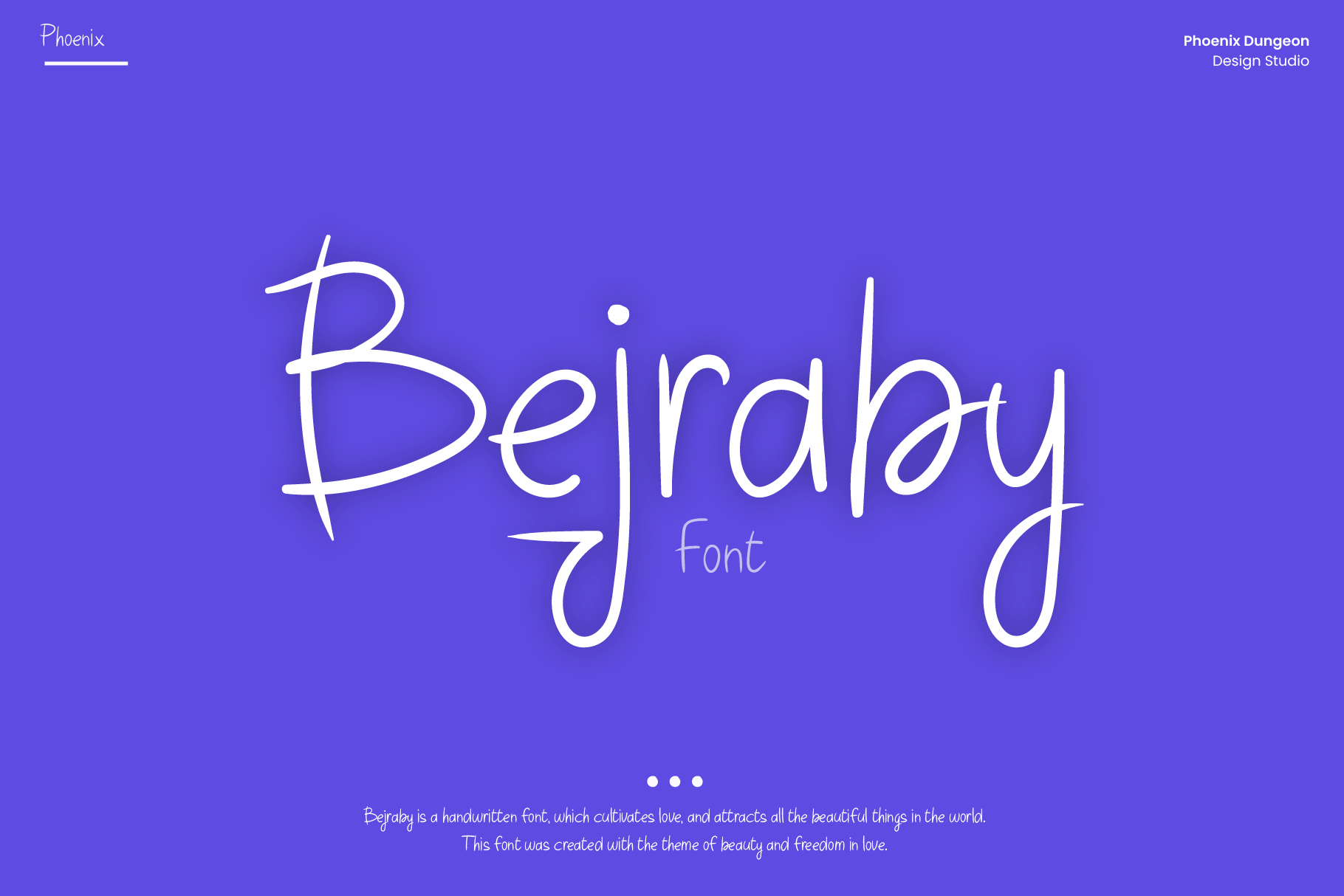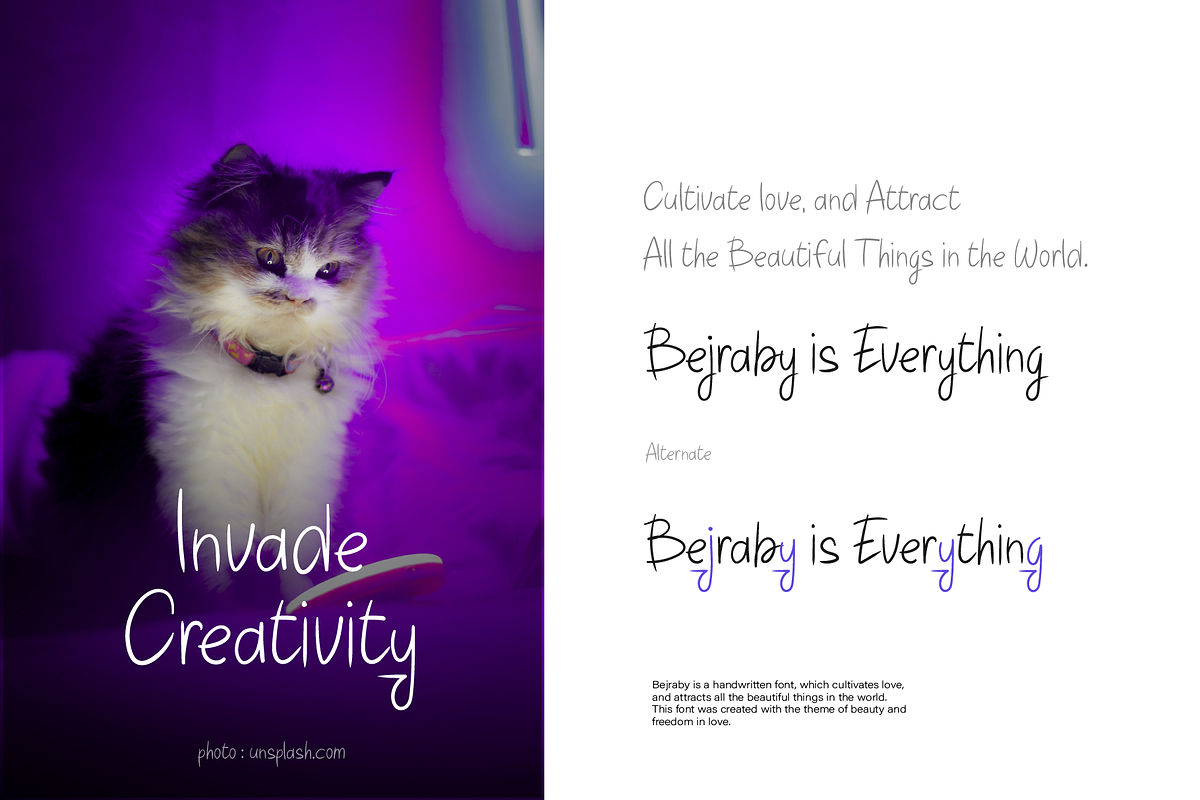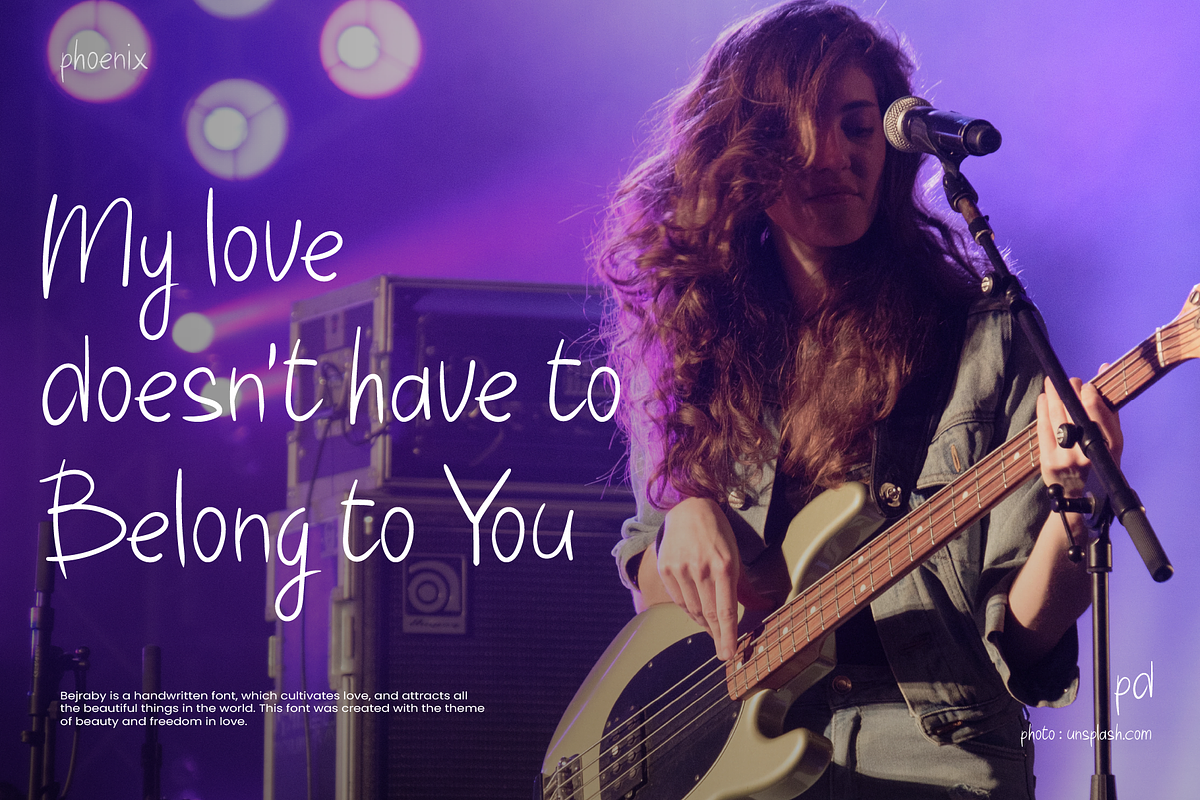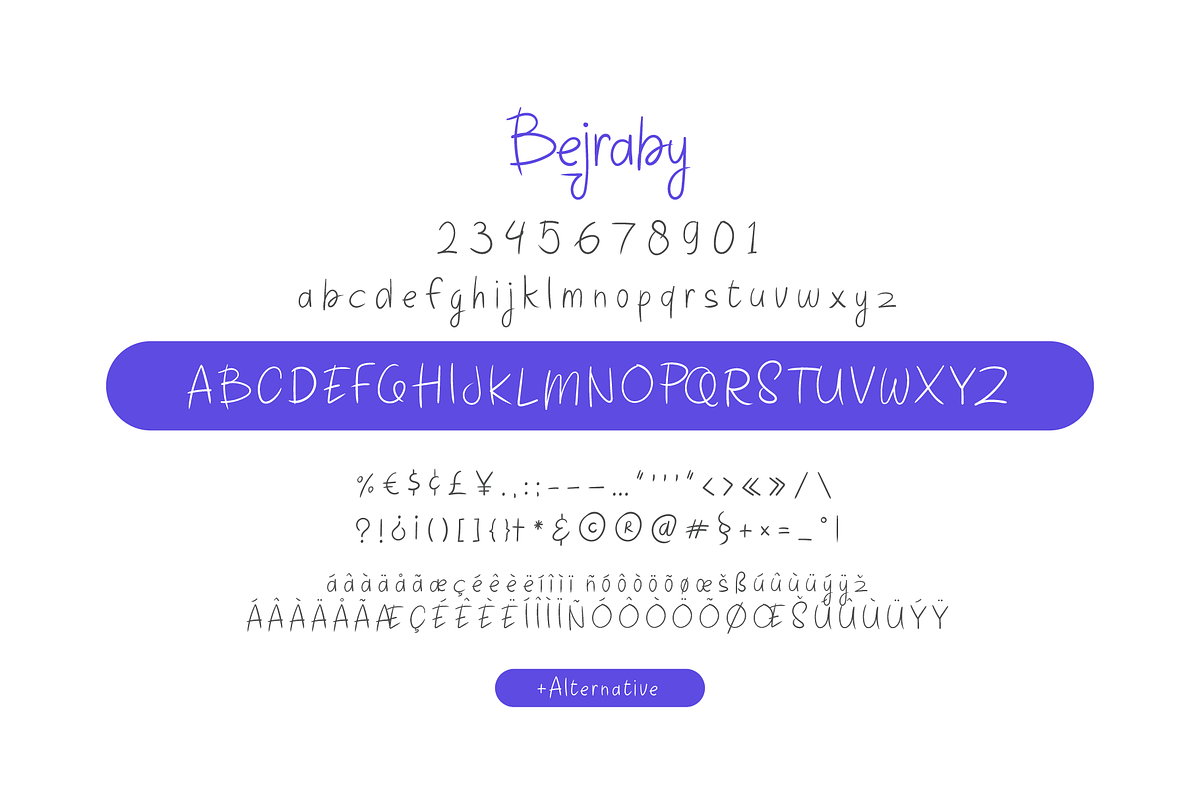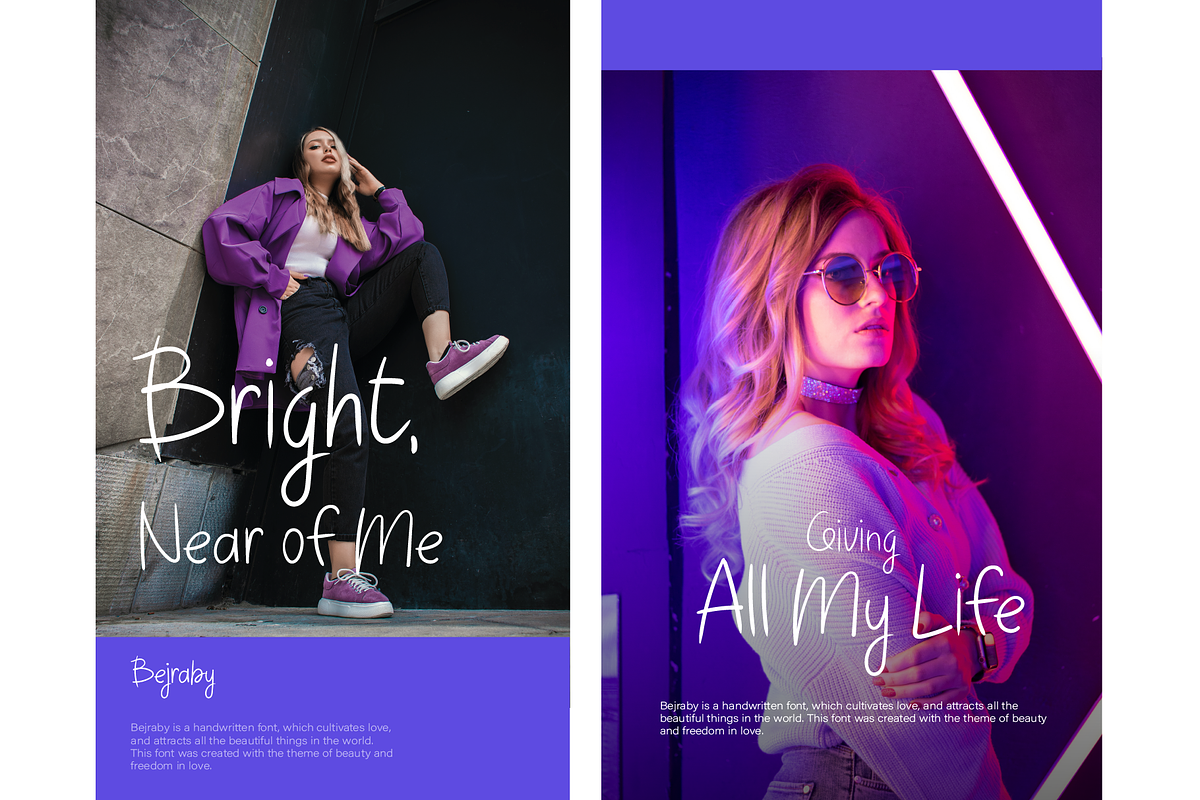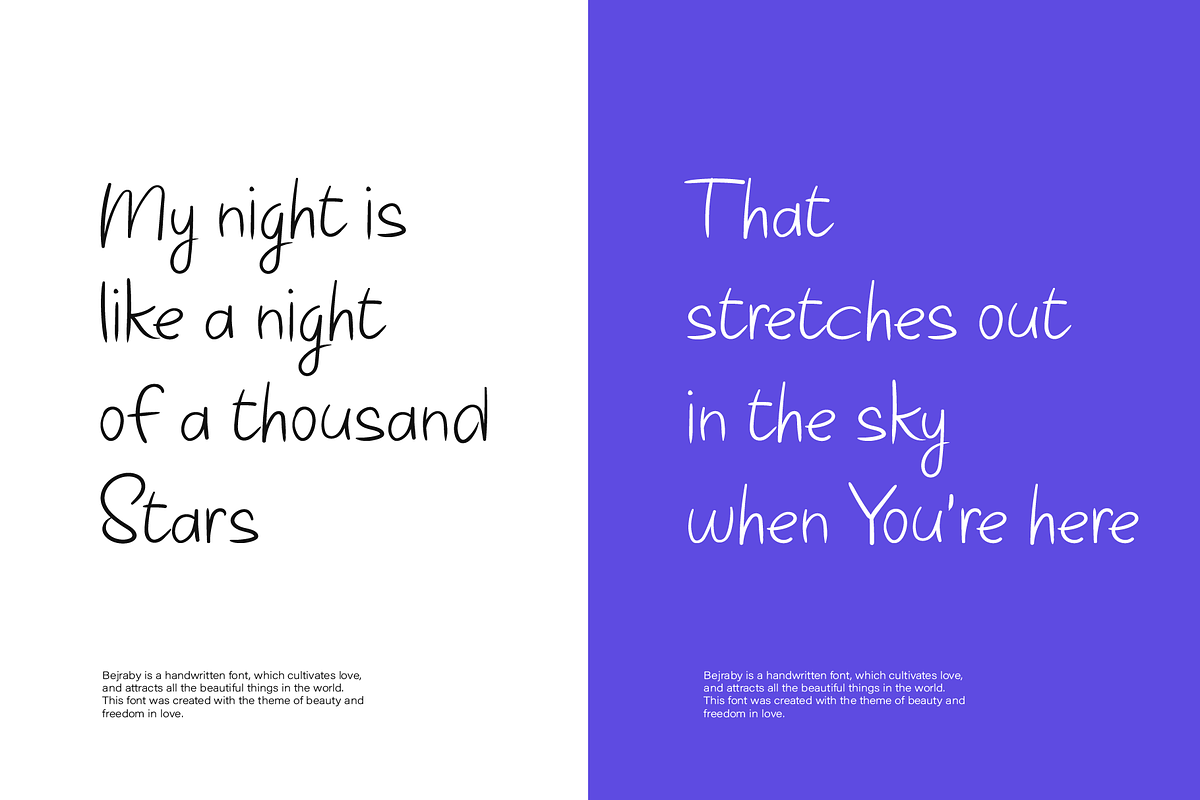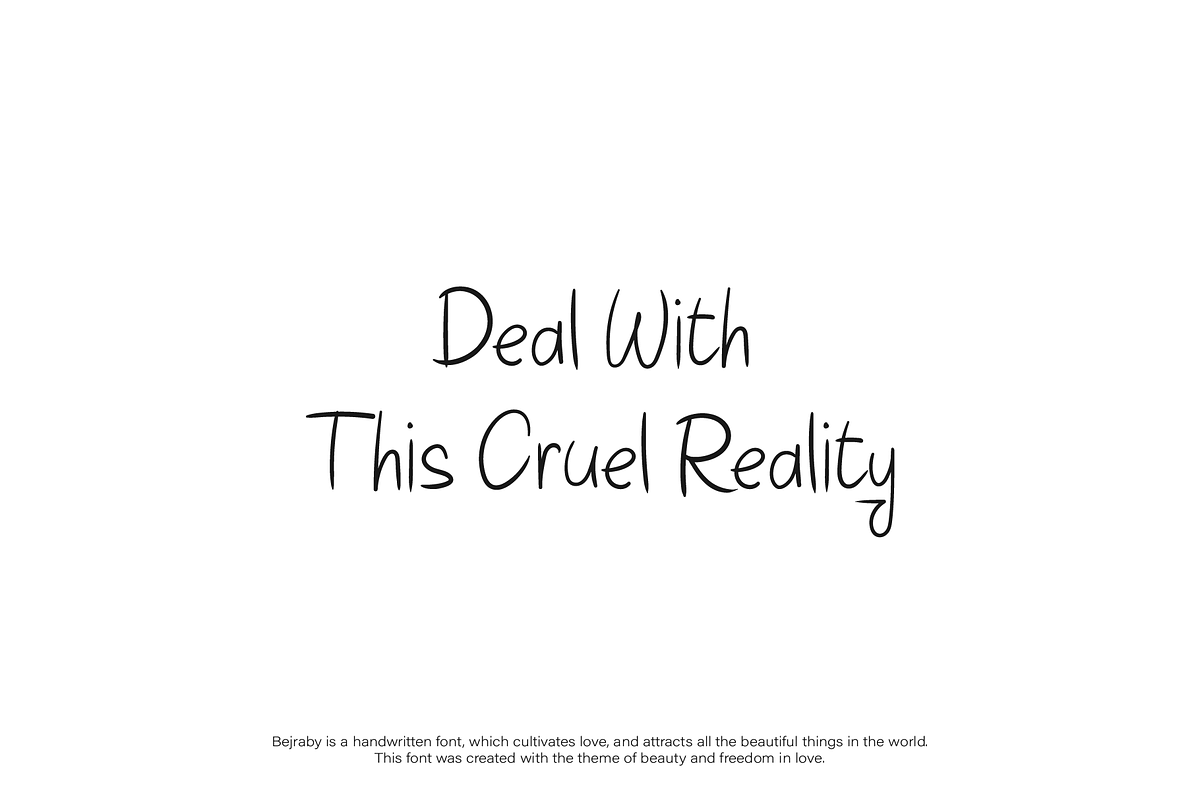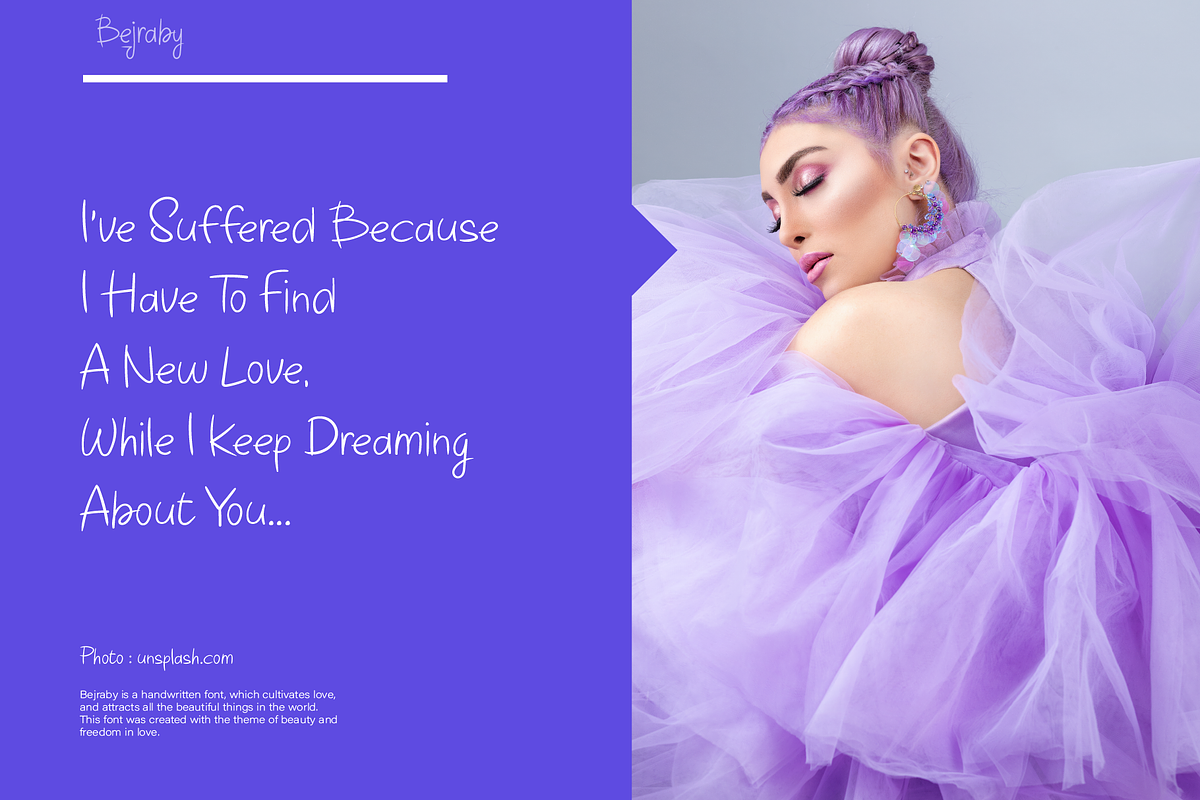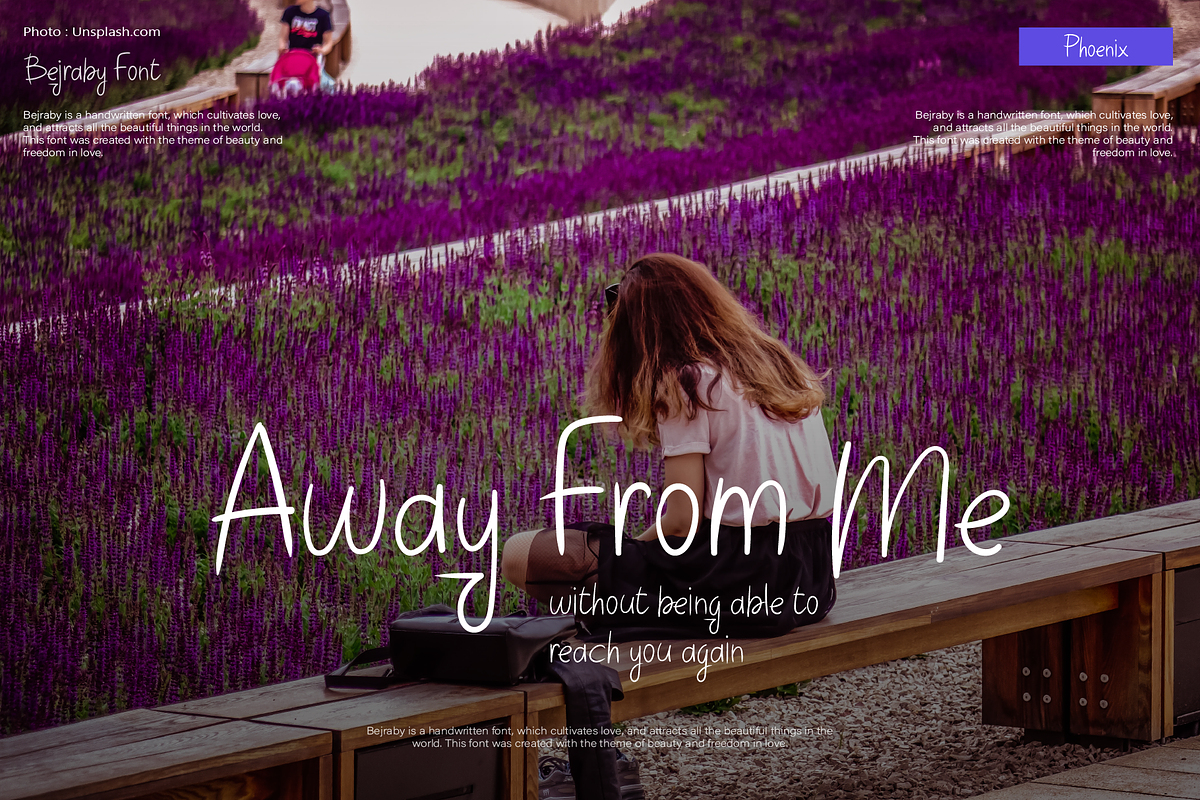
Bejraby Font
Bejraby is a handwritten font, which cultivates love, and attracts all the beautiful things in the world. This font was created with the theme of beauty and freedom in love.